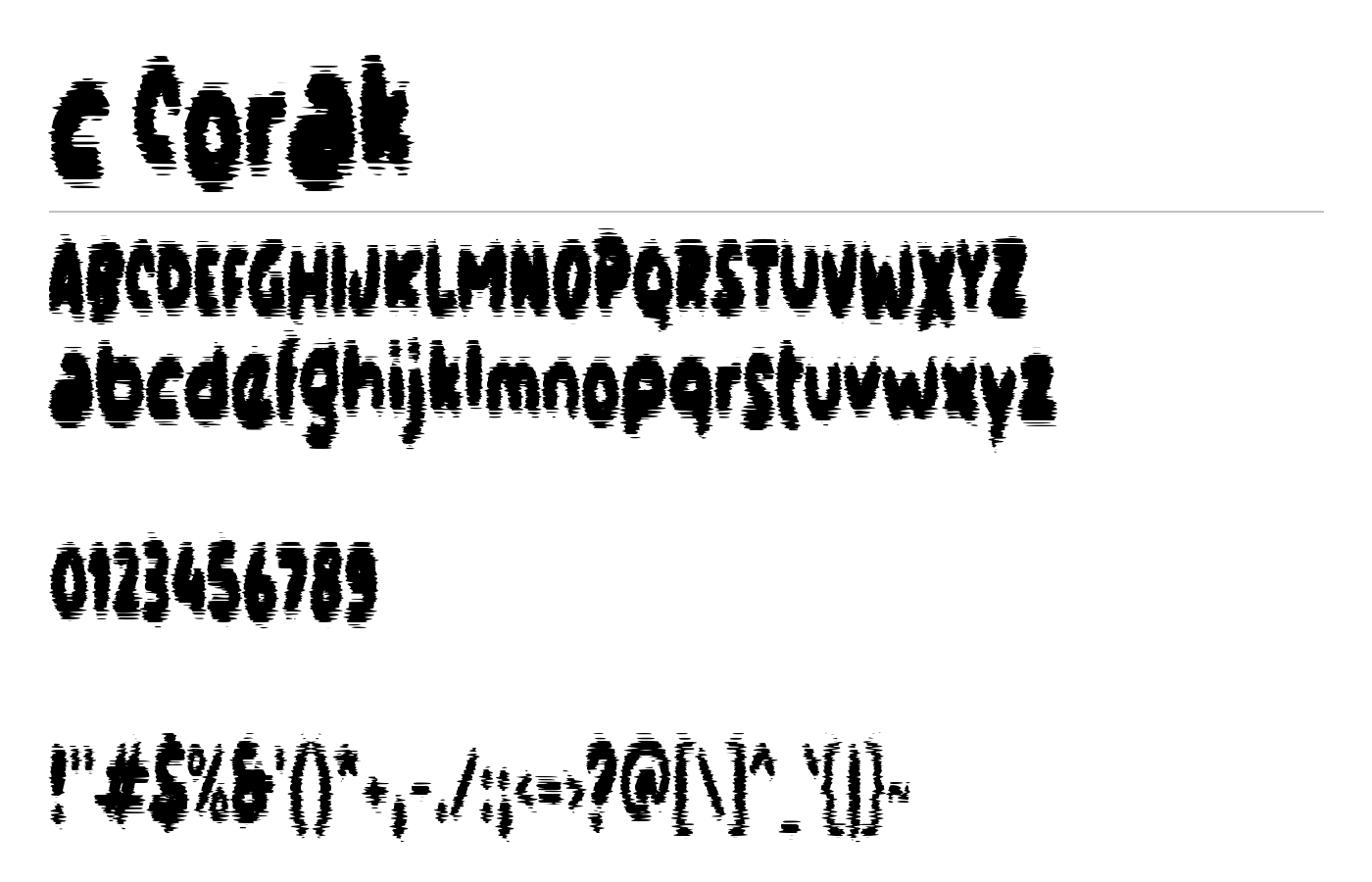
c Corak is a bold, distressed sans serif font with a glitchy, rough texture that creates a striking visual impact. Its irregular edges and high contrast between thick and fragmented strokes give it an unsettling, digital decay feel, making it perfect for edgy designs, posters, or branding that seeks to convey rebellion or a futuristic, grungy vibe. This font works best in headlines and display use where its unique, chaotic personality can stand out.
c Corak Font
About c Corak Font
| Font family | c Corak Font |